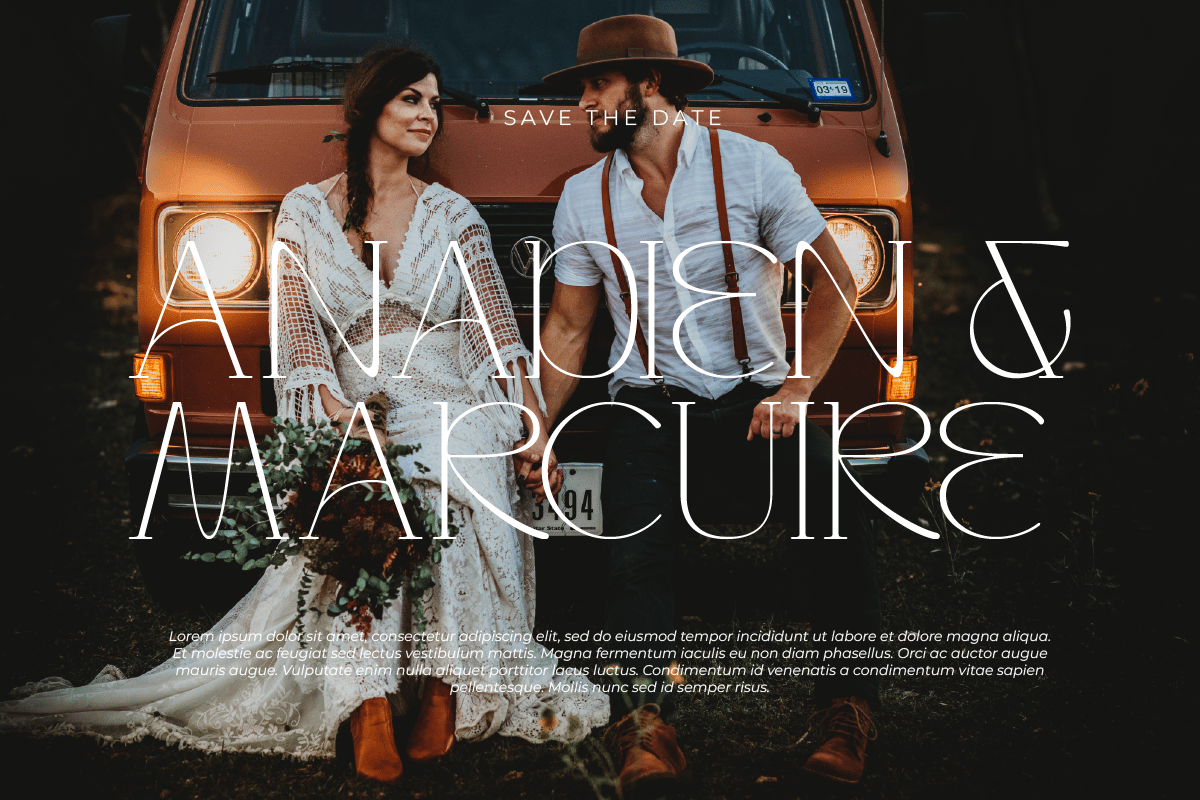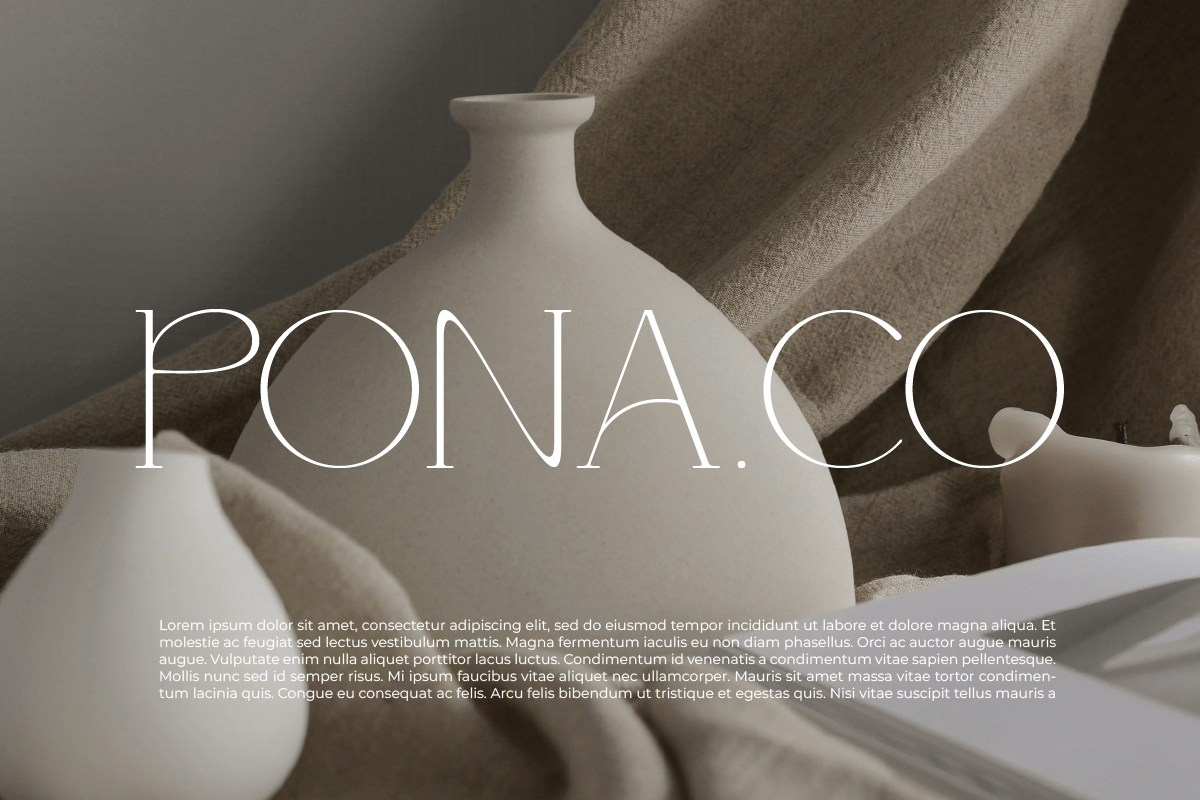
Rosaline Marige – Modern Serif Font
Rosaline Marige – Modern Serif Font is a versatile typeface ideal for various projects, including logos, branding, posters, blog headers, advertisements. Designed by timelesstypestudio, it brings a distinctive character to every project. The free version includes a full set of uppercase and lowercase letters, available in OTF format.